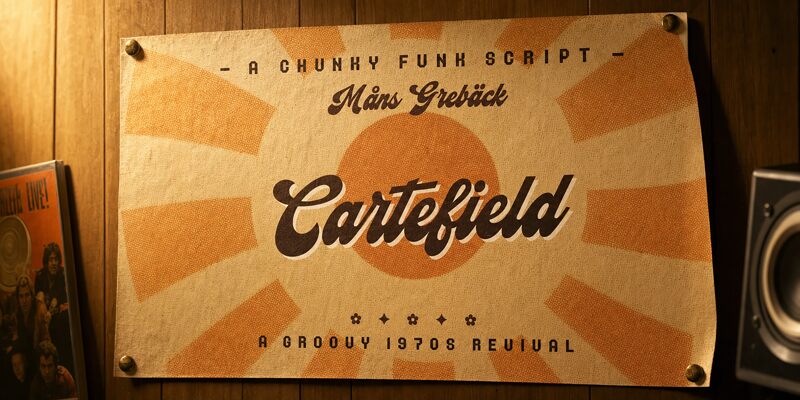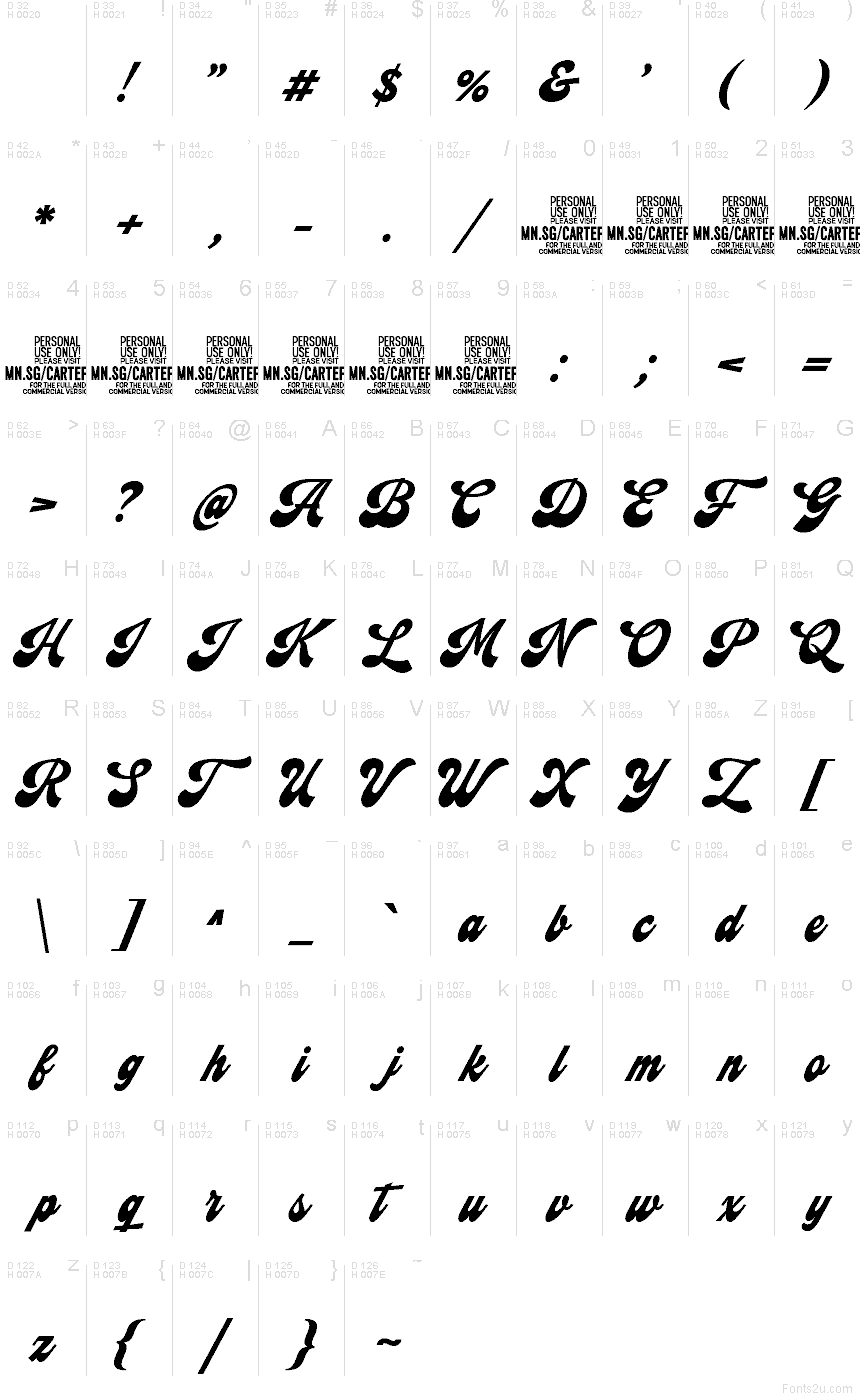
Cartefield by Mans Greback AB is a free brush script font with the confident sweep of hand-painted sign lettering. Broad, fluid strokes, lively joins, and sharp finishing flicks give the writing a fast forward motion, while the oversized opening letter brings a strong signature-like flourish.
It suits boutique branding, product packaging, event invitations, restaurant signage, and editorial cover lines where a personal gesture matters. This free font works especially well for short headlines and title cards, since its connected rhythm and dramatic entry strokes have more impact when the wording stays brief.
Cartefield PERSONAL USE Regular font presentation and specimen
Cartefield PERSONAL USE Regular font character map